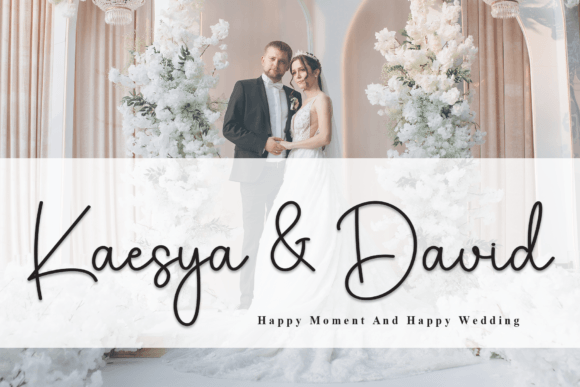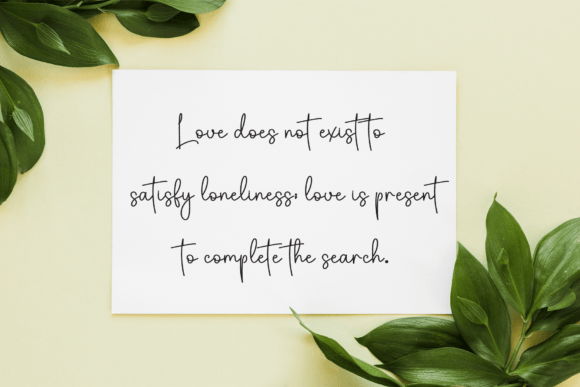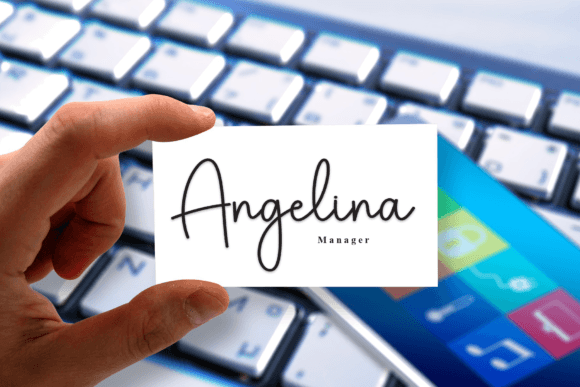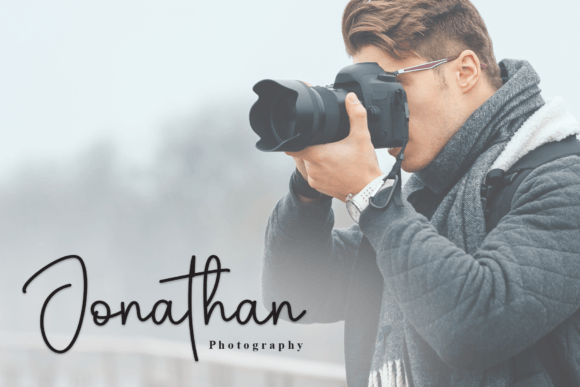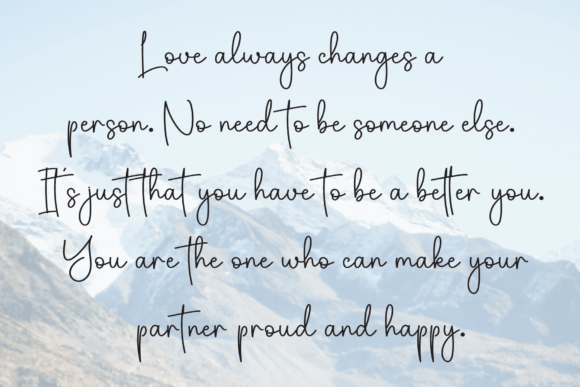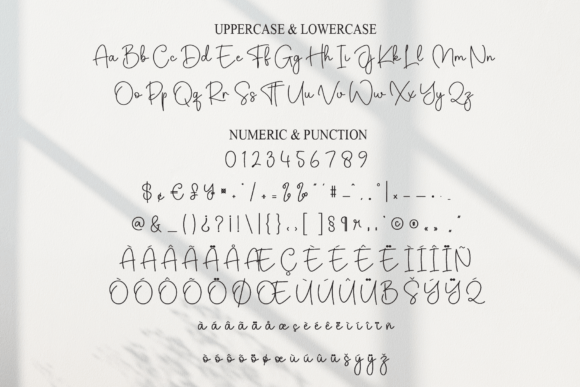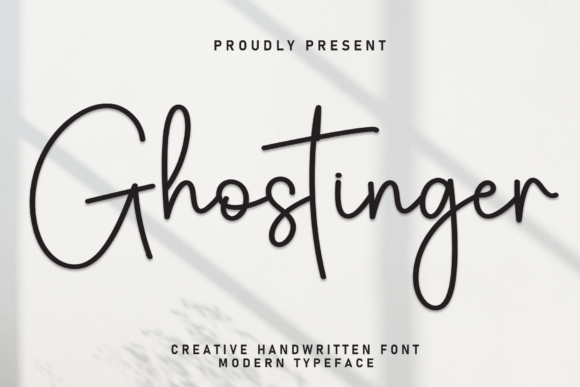
Introducing Ghostinger Font: Elevate Your Designs with Elegance and Personality
In the world of typography, a font can make or break the aesthetic of a design project. For designers and crafters seeking to add a touch of sophistication and charm to their work, Ghostinger Font is an exceptional choice. This modern and charming handwritten font exudes elegance and personality, making it perfect for upscale invitations, personal branding, and chic editorial designs.
The Characteristics of Ghostinger Font
Ghostinger Font boasts graceful, flowing strokes that dance across the page, imbuing any design with a sense of refinement and poise. Its sophisticated character is evident in its carefully crafted letterforms, which convey a sense of luxury and high-end style. Whether you’re creating wedding invitations, fashion editorials, or personal branding materials, Ghostinger Font is sure to elevate your projects with its refined allure and warmth.
Perfect for Upscale Invitations and Personal Branding
When it comes to creating upscale invitations, every detail matters. Ghostinger Font is specifically designed to make a lasting impression, with its elegant and refined appearance making it perfect for:
- Wedding invitations and save-the-date cards
- Birthday and anniversary celebrations
- Formal event invitations and gala announcements
For personal branding, Ghostinger Font offers a unique opportunity to establish a sophisticated and memorable visual identity. Use it for:
- Logo design and wordmarks
- Social media graphics and digital marketing materials
Chic Editorial Designs and Beyond
Ghostinger Font is not just limited to invitations and personal branding. Its versatility makes it an excellent choice for a wide range of editorial designs, including:
- Fashion editorials and magazine layouts
- Lifestyle and travel articles
- Food and recipe blogs
Additionally, Ghostinger Font can be used for various craft projects, such as:
- Hand lettering and calligraphy
- DIY paper crafts and scrapbooking
- Custom signage and display graphics
Why Choose Ghostinger Font?
With so many fonts available, why choose Ghostinger Font? Here are just a few reasons:
- Unique and distinctive: Ghostinger Font offers a fresh and original take on traditional handwritten fonts.
- Elegant and refined: Its sophisticated character makes it perfect for upscale designs and high-end branding.
- Versatile: Ghostinger Font can be used for a wide range of projects, from invitations to editorial designs and beyond.
- Easy to read: Despite its elegant appearance, Ghostinger Font remains highly legible, making it perfect for body text and longer-form content.
With Ghostinger Font, you can add a touch of elegance and sophistication to your designs, setting them apart from the rest. Whether you’re a designer, crafter, or DIY enthusiast, this charming handwritten font is sure to become a favorite in your creative arsenal.